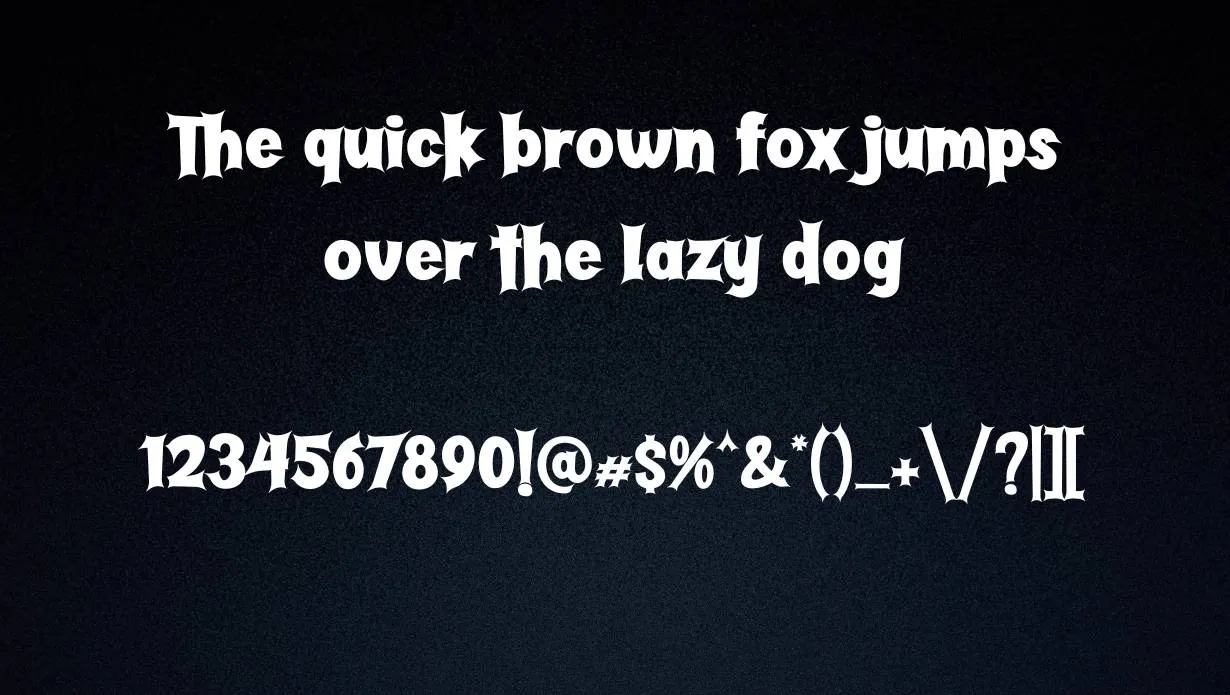
Butter Haunted Font is a font that evokes a spooky and eerie atmosphere, making it perfect for Halloween-themed projects, horror book covers, and haunting posters. This font typically supports file formats like TTF, OTF, and sometimes EOT, ensuring compatibility across different design platforms.
Its eerie and mysterious appearance sets the tone for an adventurous and spine-tingling design, making it an excellent choice for projects aiming to capture a sense of fear and suspense. To ensure an optimal response from your audience, consider pairing the squirrel font with this font family for a compelling combination.